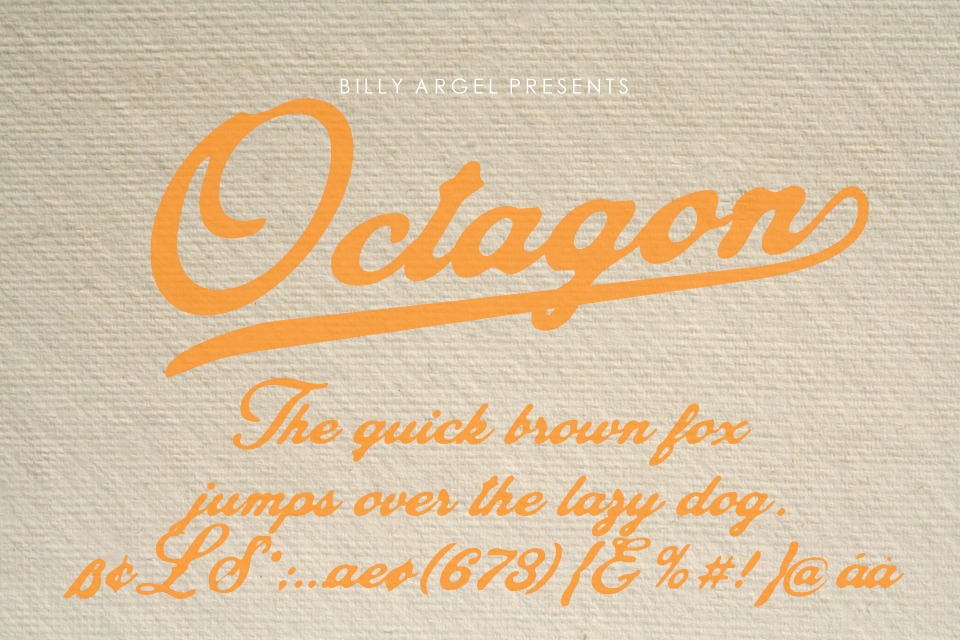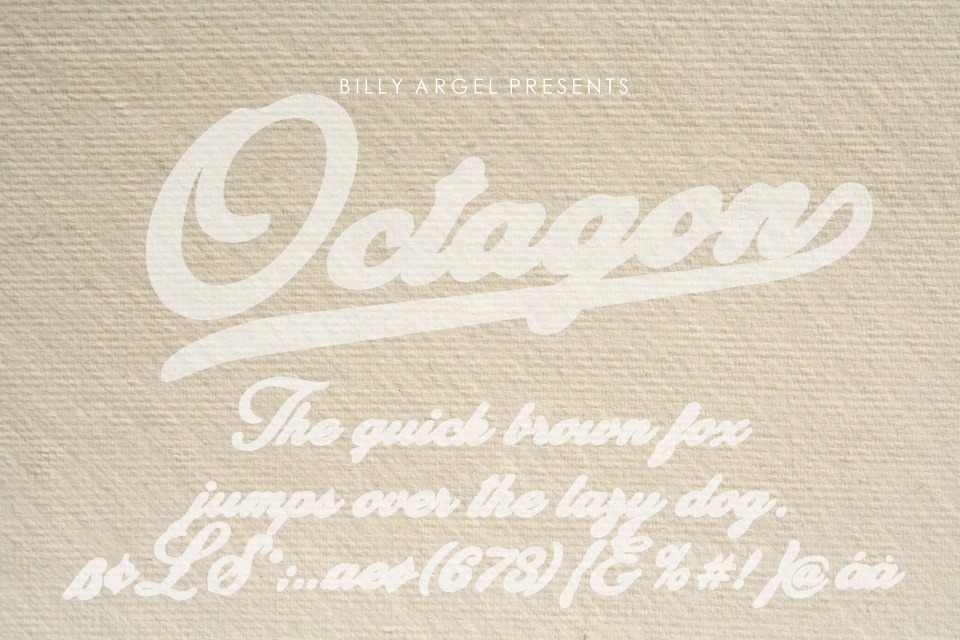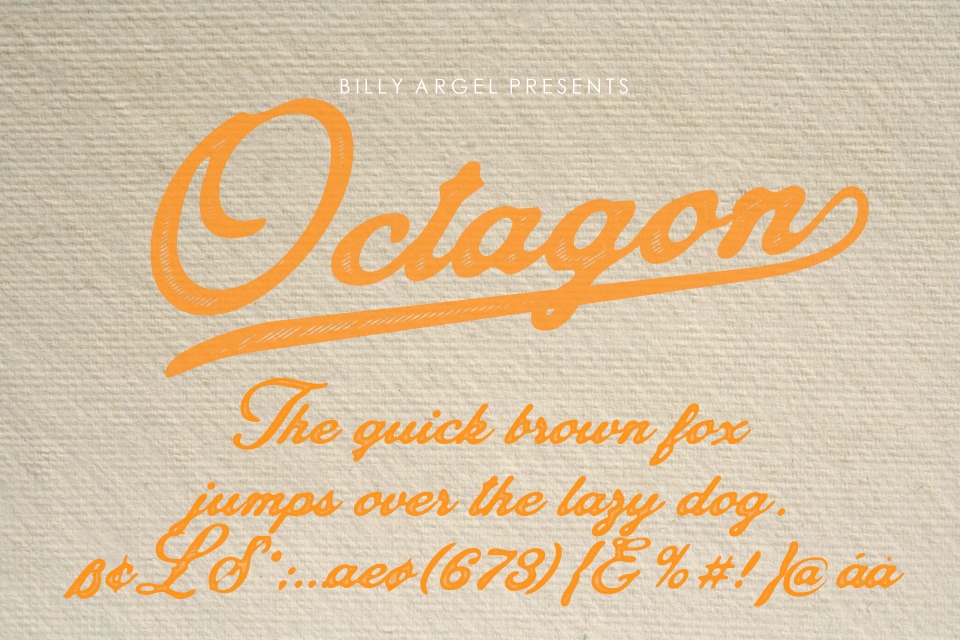
Octagon Font
Octagon Script Font
This is a nice brush typeface, designed to combine perfectly and allow you to create stunning hand-lettering quickly and easily. Ideal for logos, handwritten quotes, product packaging, header, poster, merchandise, social media & greeting cards.